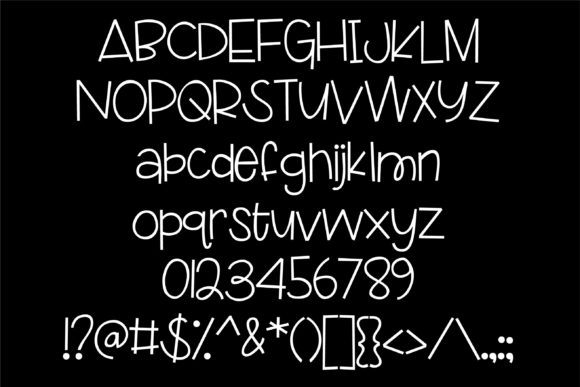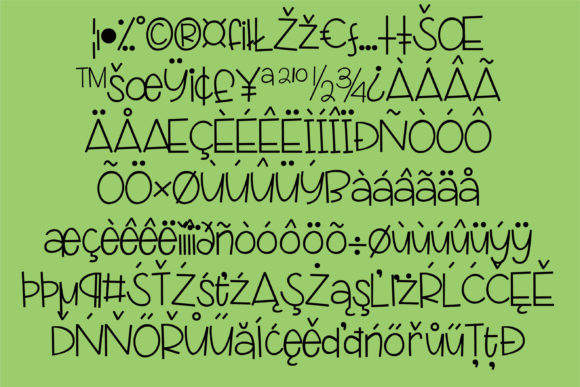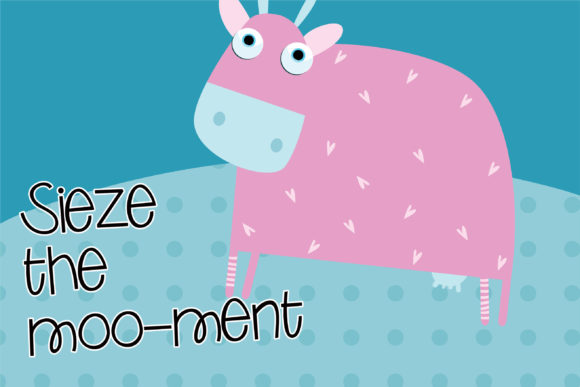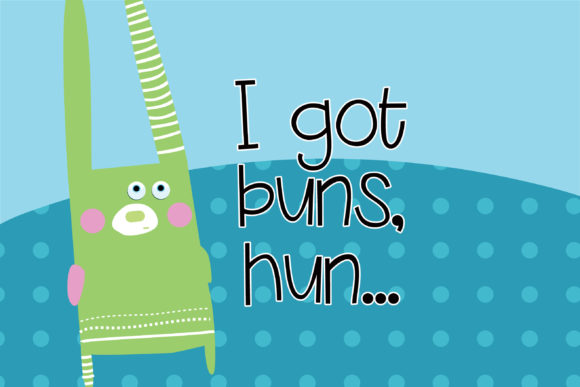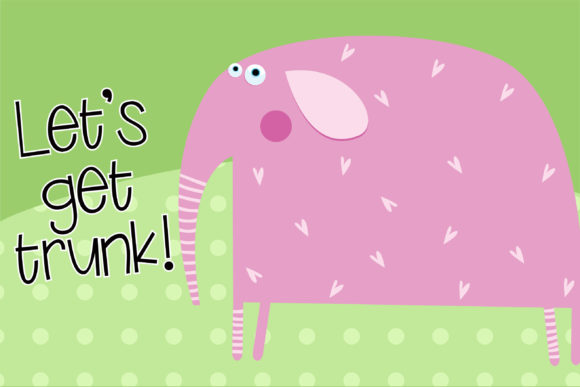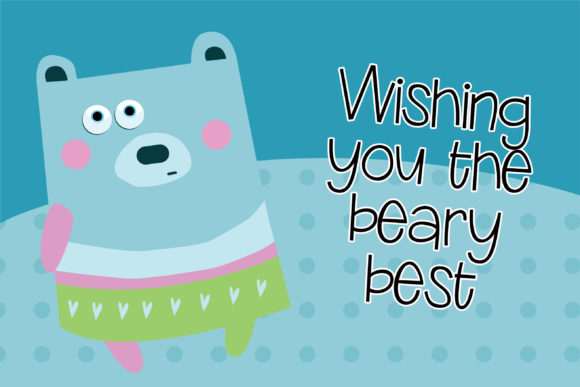
Discover the Delightful Goosebumps Font: A Perfect Choice for Kids’ Projects
Are you a designer, crafter, or educator looking for a font that embodies playfulness and authenticity? Look no further than the Goosebumps font! This cute sans serif font is youthful, whimsical, and adaptable, making it the perfect choice for any children’s activity or school project. In this article, we’ll dive into the world of Goosebumps font, exploring its features, uses, and benefits.
What is Goosebumps Font?
Goosebumps font is a sans serif font that exudes a sense of playfulness and fun. Its clean and simple design makes it easy to read and understand, while its youthful and whimsical vibe adds a touch of excitement to any project. The font’s adaptability is one of its standout features, allowing it to be used in a wide range of applications, from children’s books and educational materials to crafts and DIY projects.
Features of Goosebumps Font
So, what makes Goosebumps font so special? Here are some of its key features:
- Youthful and Whimsical: Goosebumps font has a playful and carefree vibe that’s perfect for kids’ projects.
- Clean and Simple: The font’s sans serif design makes it easy to read and understand.
- Adaptable: Goosebumps font can be used in a wide range of applications, from digital to print.
- Playful and Authentic: The font embodies a sense of playfulness and authenticity that’s perfect for kids’ activities and school projects.
Uses of Goosebumps Font
So, what can you use Goosebumps font for? The possibilities are endless! Here are some ideas to get you started:
- Kids’ Books: Use Goosebumps font to create engaging and interactive children’s books.
- Educational Materials: The font is perfect for educational materials, such as worksheets, activity sheets, and educational posters.
- Crafts and DIY Projects: Goosebumps font is a great choice for craft and DIY projects, such as making cards, gift tags, and other paper crafts.
- School Projects: The font is suitable for school projects, such as presentations, posters, and reports.
Benefits of Using Goosebumps Font
So, why should you choose Goosebumps font for your next project? Here are some benefits:
- Easy to Read: The font’s clean and simple design makes it easy to read and understand.
- Engaging: Goosebumps font is playful and attention-grabbing, making it perfect for kids’ projects.
- Versatile: The font can be used in a wide range of applications, from digital to print.
- Fun: Goosebumps font adds a touch of fun and excitement to any project.
Tips for Using Goosebumps Font
Here are some tips for using Goosebumps font:
- Pair with Other Fonts: Experiment with pairing Goosebumps font with other fonts to create a unique and interesting look.
- Use in Headings and Titles: Use Goosebumps font in headings and titles to add a touch of playfulness and excitement.
- Experiment with Colors: Try using Goosebumps font with different colors to add visual interest and appeal.
In conclusion, Goosebumps font is a delightful and playful font that’s perfect for kids’ projects and school activities. Its clean and simple design, adaptability, and youthful vibe make it a great choice for designers, crafters, and educators. With its ease of use, versatility, and fun factor, Goosebumps font is sure to become a favorite in your font collection.